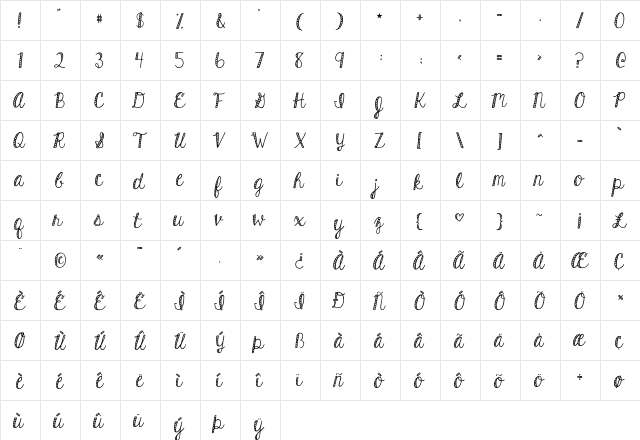
KG Hard Candy Striped Regular
| Foundry | Kimberly Geswein |
| Designer | Kimberly Geswein |
Design Context for KG Hard Candy Striped Typeface
KG Hard Candy Striped is a composed and adaptable typeface that performs quietly and consistently across a wide range of design contexts.